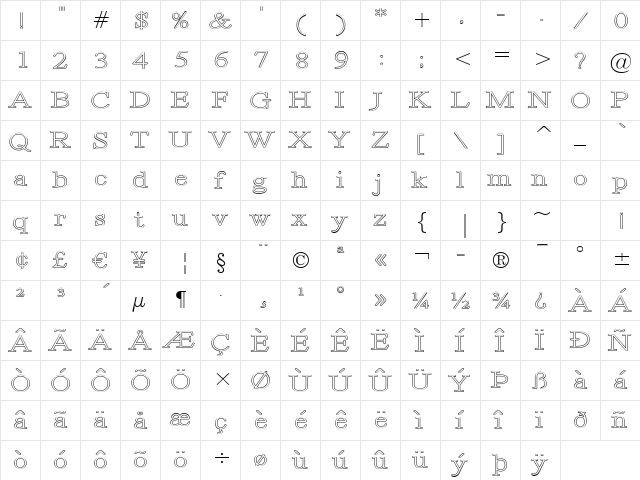
Revelation BTN Exp Out Regular
Design Context for Revelation BTN Exp Out Typeface
Revelation BTN Exp Out takes a measured approach to typography — its balanced proportions and neutral character make it a reliable workhorse for both digital and print work.
Pro Tip: Use Revelation BTN Exp Out in both headline and body roles to test its range before committing to a single application.